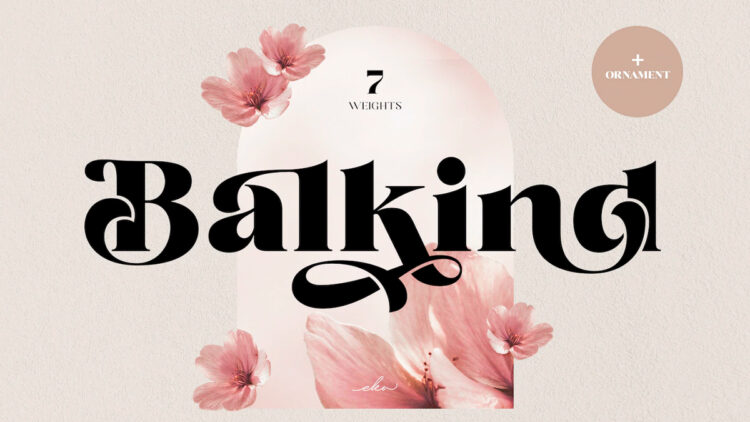
21 New Free Serif Fonts for Graphic Designers
Hello there, designers! Graphic designers may use these 21 new free serif fonts for graphic designers to create long paragraphs for newspapers, magazines, posters, and books.
Typography is becoming increasingly crucial in today’s web design.
Finding the best free serif fonts might be tricky.
The internet is awash in serif typefaces, some of which aren’t so great, and navigating through a plethora of websites and platforms to find the font you’re looking for can take a long time and effort.
That’s why we’ve done the legwork for you and put together this thorough list of the finest free serif fonts available.
Choosing a professional font is an important component of making any design look more professional.
Costly fonts aren’t necessary to achieve the same level of professionalism, of course.
If you can’t afford to spend money on expensive serif fonts, you can always use one of the thousands of free serif fonts to make your projects seem great. This collection includes the greatest free serif fonts for any design project.
1. Balkind – Ornamental Serif Fonts For Graphic Deisgners
2. Casanova Serif Display Free Fonts For Graphic Deigners
3. Devitos – Free Elegant Serif Fonts For Graphic Deigners
4. Montgrove – Ligature Serif Fonts For Graphic Designers
5. Margaret – Free Serif Fonts For Graphic Designers
6. Derau – Free SVG Serif Font
7. Ilyas – Free Serif
8. Coldiac – Luxury Serif Font (Free Download)
9. Quinlliyk Retro Serif
10. Lovelyn Font
11. Hatcher Typeface
12.Qene-G – Free Serif Font
13. Fornire Light – Free Serif Font
14. MADE Canvas
15.Henrik – Free Textured Sans Serif Font
16. Gabton Malgora Typeface
17. Narifah Modern Serif Font
18. Christmas – Free Festive Serif Font
19. Fligen – Stylish Serif
20. Gretha – Free Display Serif Font
21. Wakile Stylish Serif Font